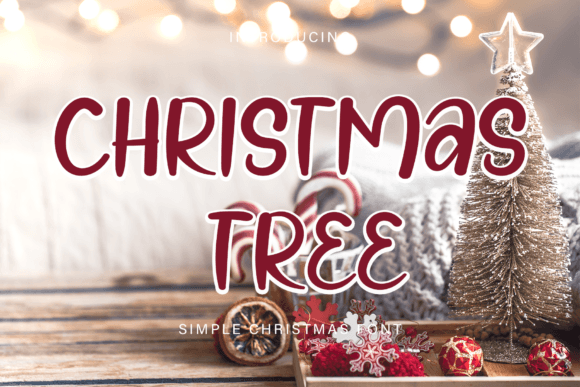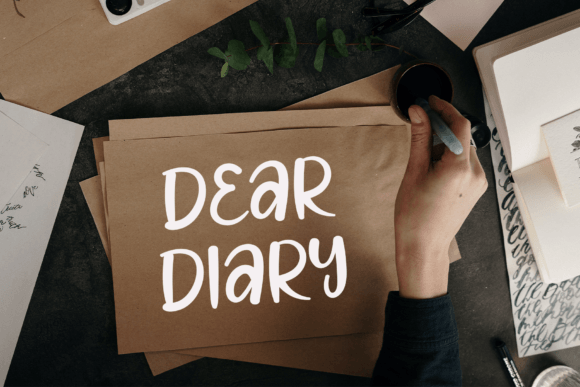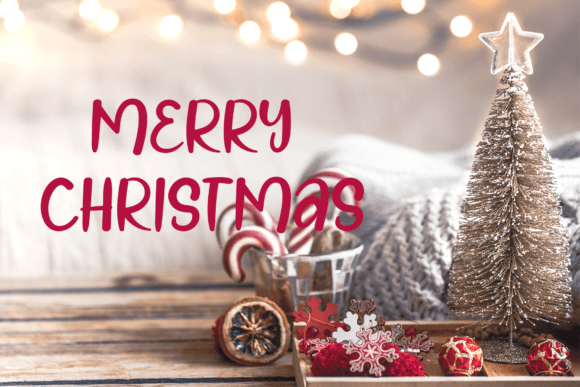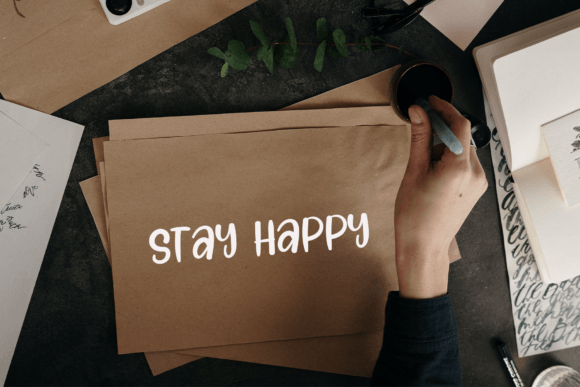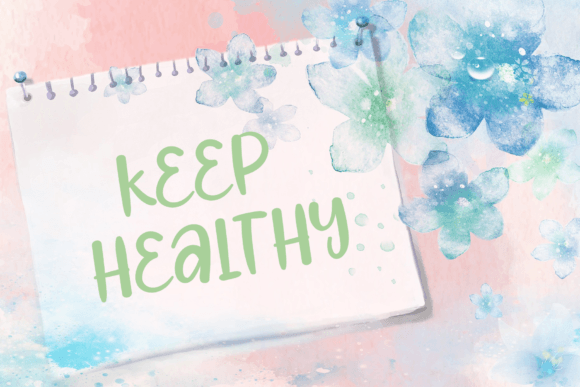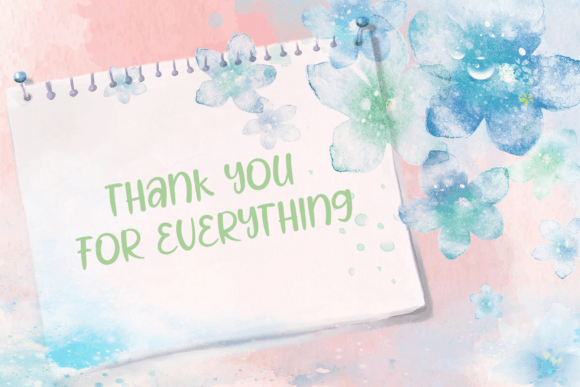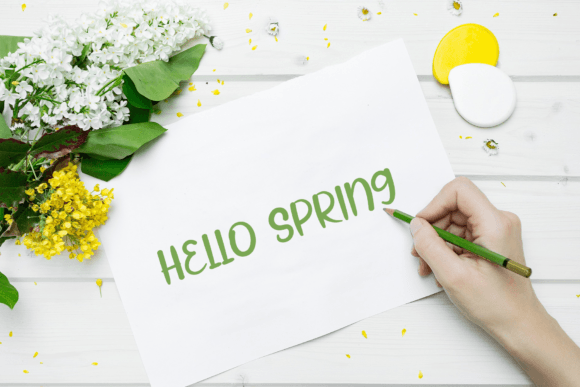
Christmas Tree Font
Christmas Tree Font Download – Simple Friendly Handwritten Script
The Christmas Tree Font download is a playful handwritten typeface that combines simplicity with friendliness. With its approachable strokes and warm flow, this font is an excellent addition to both personal and professional projects. Because of its versatile design, it adapts well to greeting cards, posters, branding, and holiday-themed creations.
Simple and Friendly Handwritten Style
Christmas Tree features smooth curves and balanced letters that make text approachable. As a result, it brings joy and personality to your work. In addition, its casual look ensures your projects feel fresh and authentic.
Christmas cards, wedding invitations, and personal greeting notes shine with this font. It adds charm and a heartfelt touch to messages, making them feel memorable. Therefore, it is a strong choice for stationery and festive projects.
Christmas Tree Font Download for Posters and Logos
The Christmas Tree Font download is also great for posters, logos, and branding materials. Its simple yet stylish design ensures readability while giving your projects a creative edge.
Versatility for Holiday and DIY Projects
From handmade crafts to digital graphics, this font adapts seamlessly. In addition, its cheerful strokes make it ideal for seasonal promotions, decorations, and creative DIY designs.
Readability and Professional Balance
Unlike overly decorative fonts, Christmas Tree maintains both clarity and style. As a result, it is suitable for large titles, smaller details, and everything in between.
Why Add This Handwritten Script to Your Collection?
The Christmas TreeFont download is simple, versatile, and easy to use. In other words, it suits greeting cards, posters, logos, branding, and festive projects alike. Finally, it is a handwritten font that brings joy, warmth, and originality to every design.